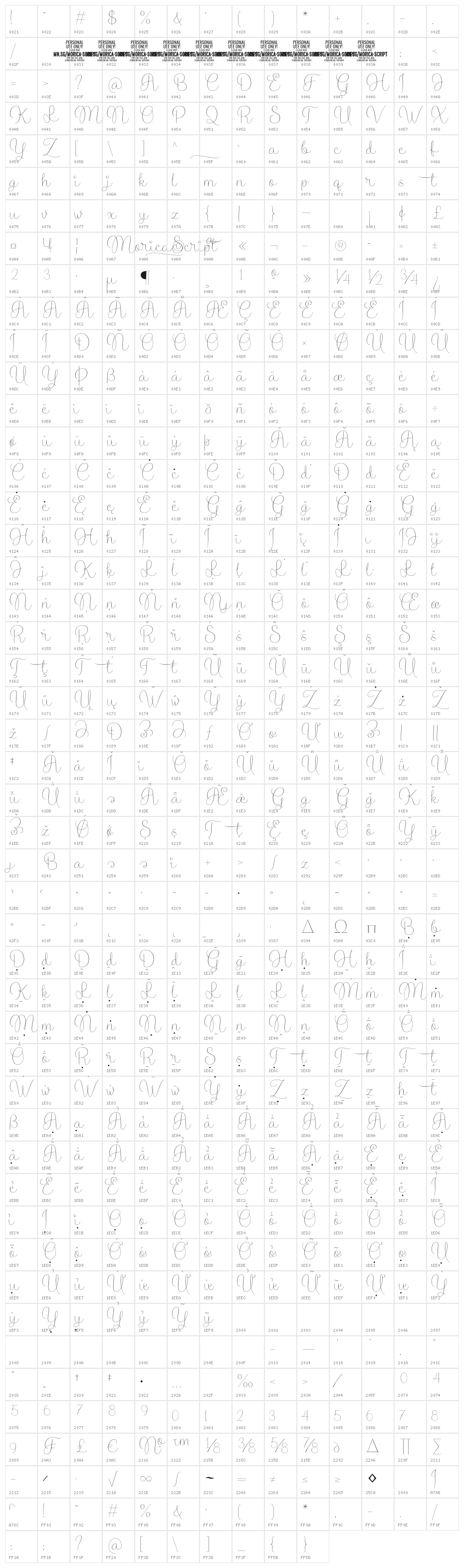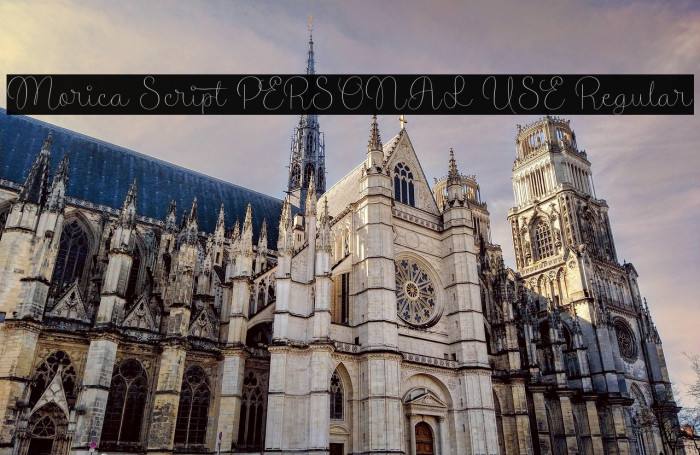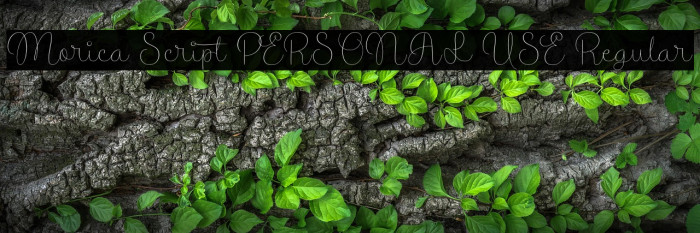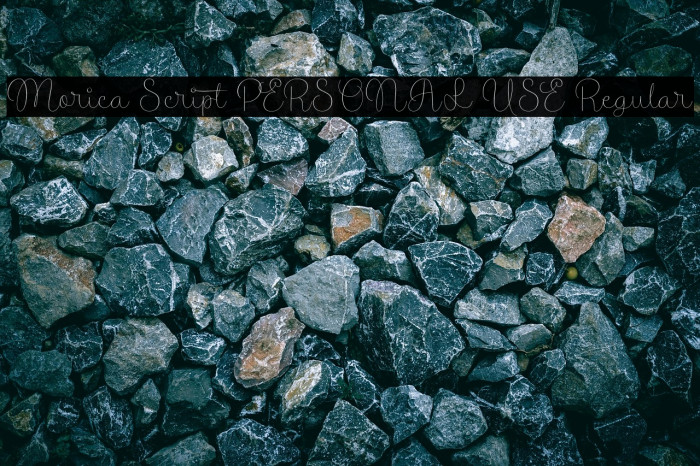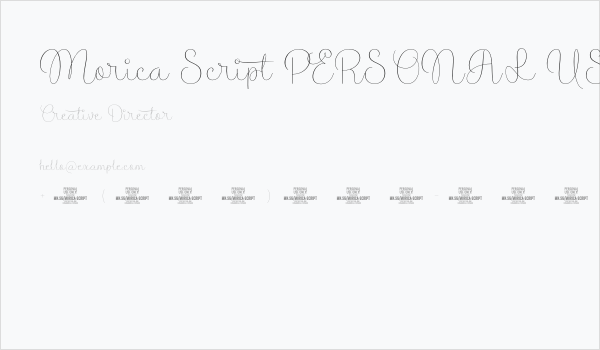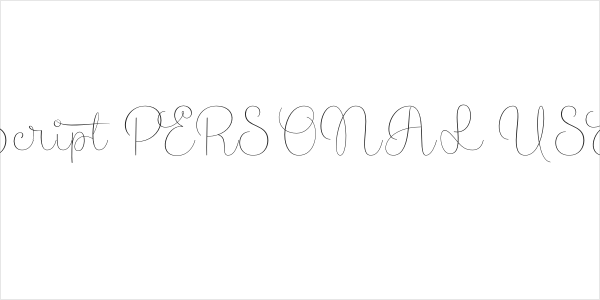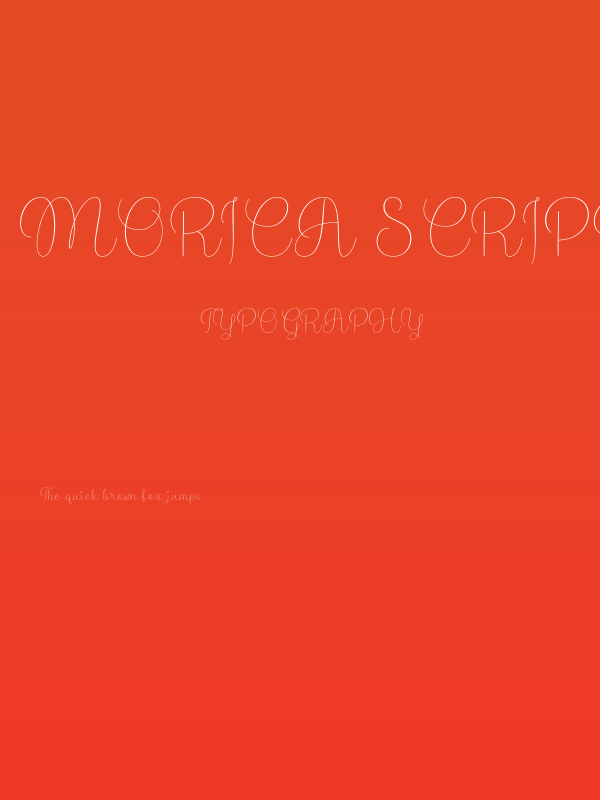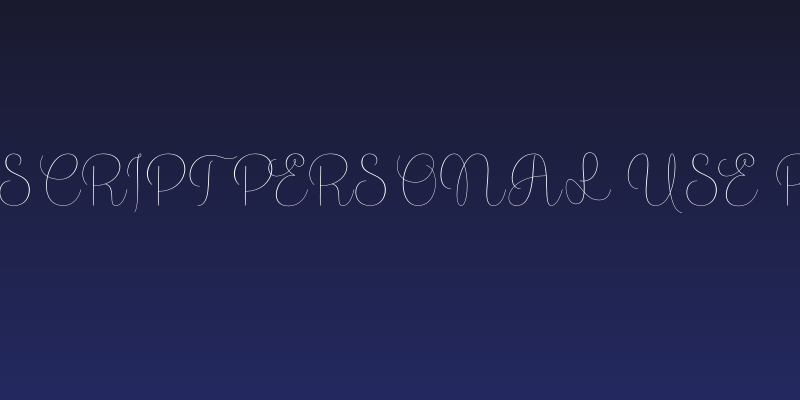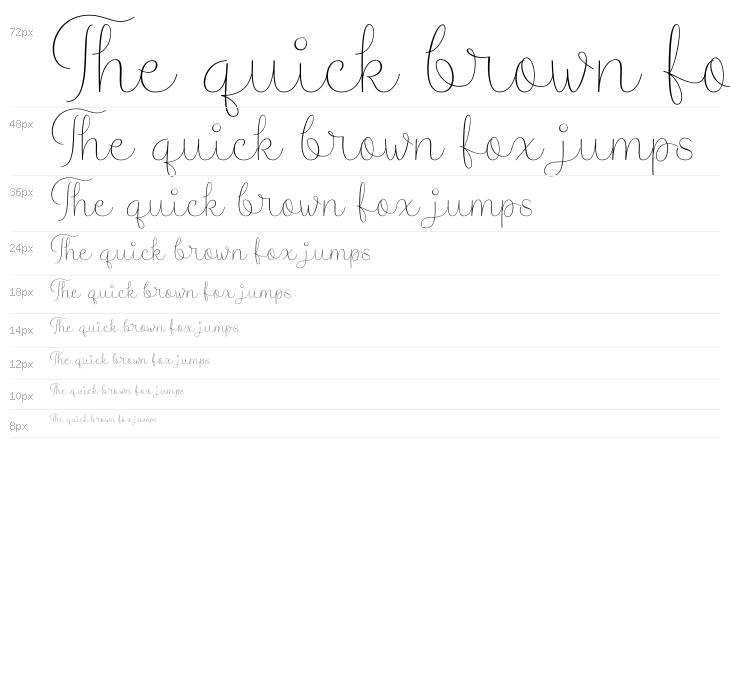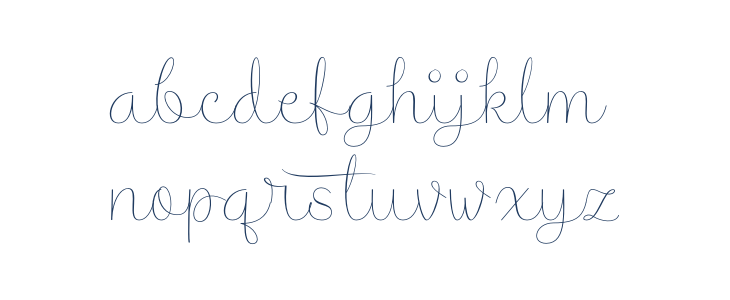
Morica Script PERSONAL USE Regular Font
Morica Script PERSONAL USE Regular Description
This font features an elegant and flowing script style, characterized by its delicate and continuous strokes that mimic the fluidity of handwriting. The uppercase letters are ornate, with loops and swirls that add a touch of sophistication. The lowercase letters maintain a consistent flow, with some characters extending below the baseline, enhancing its cursive appeal. The numerals and special characters are crafted with the same attention to detail, ensuring a cohesive look throughout. This font is perfect for projects that require a personal and artistic touch, such as invitations, greeting cards, and branding materials.
| Proposed Projects | Ideal for wedding invitations, greeting cards, personal branding, and artistic projects. |